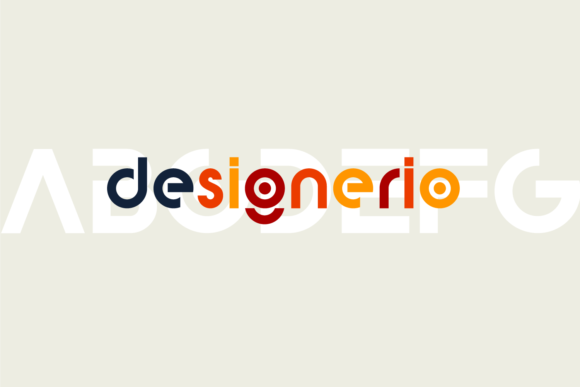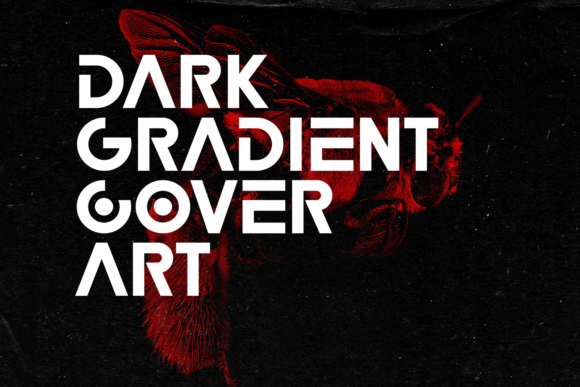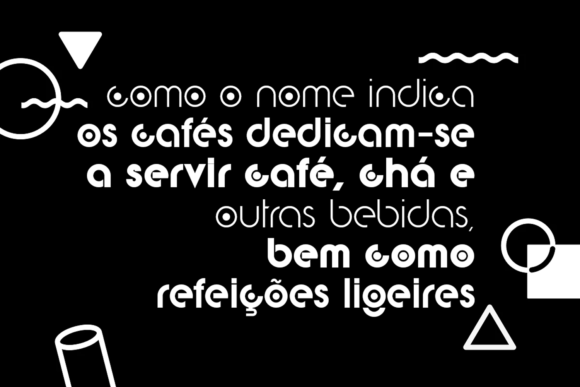
Digital Geometric Font
About the Digital Geometric Font
Welcome to the world of Digital Geometric Font, a typeface that will inspire your next great project. Digital Geometric is a cool, unique and assertive display font. This font is ideal for writing web designs, business cards, or pretty much anything else that requires a techno touch.
Its strong geometric forms and clean lines make it particularly effective for headlines, logos, and short, impactful text on posters or packaging. The assertive nature of Digital Geometric is less suited to body text or long paragraphs; its boldness can become overwhelming and hinder readability in extended use. Avoid using it for UI elements requiring high legibility.
Digital Geometric’s core personality is bold and modern, suggesting technological innovation and forward-thinking brands. It pairs well with clean sans-serif fonts like Open Sans for a balanced contrast, or a more playful script typeface like Pacifico to add a touch of personality. For a sophisticated look, consider pairing it with a classic serif font like Garamond.
The font’s assertive energy aligns well with tech companies, futuristic projects, and brands focused on innovation. Its clean lines lend themselves to projects requiring a modern and professional aesthetic.
Digital Geometric Font Example